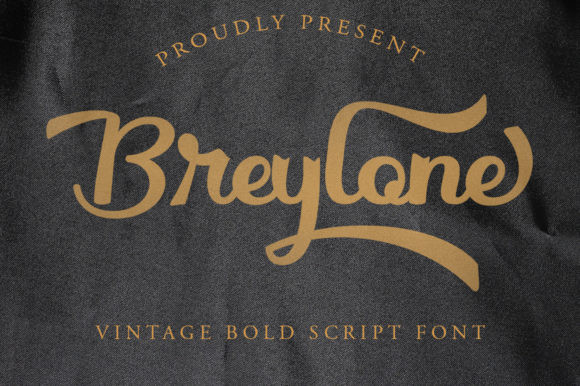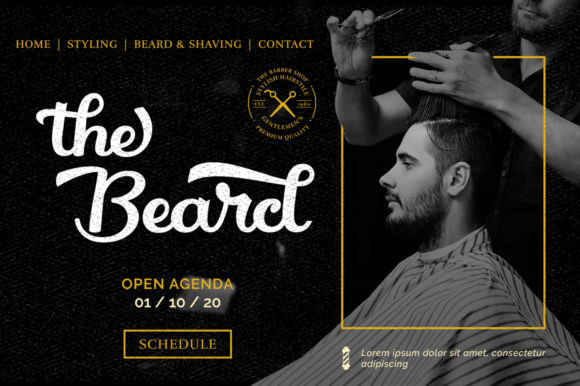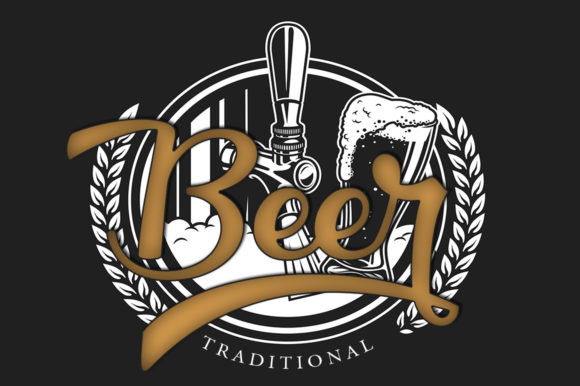
Breylone Font
Breylone is a vintage styled, bold handwritten font. It can be used for various purposes such as logos, wedding invitations, headings, t-shirts, letterhead, signage, labels, news, posters, badges and so much more.